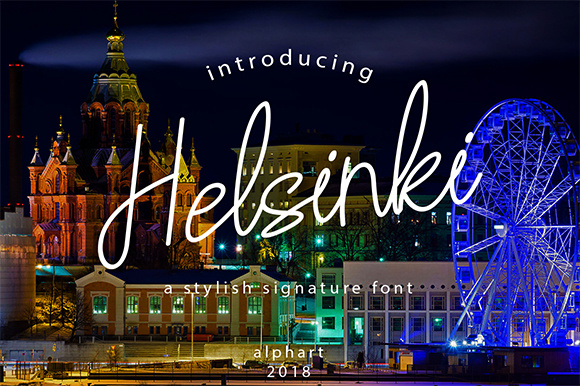
Helsinki Font
About Helsinki Font
The Helsinki is a modern handwritten font with soft touches and beautiful curves on each letter. it’s perfect for signatures, lettering, logos, and much more!